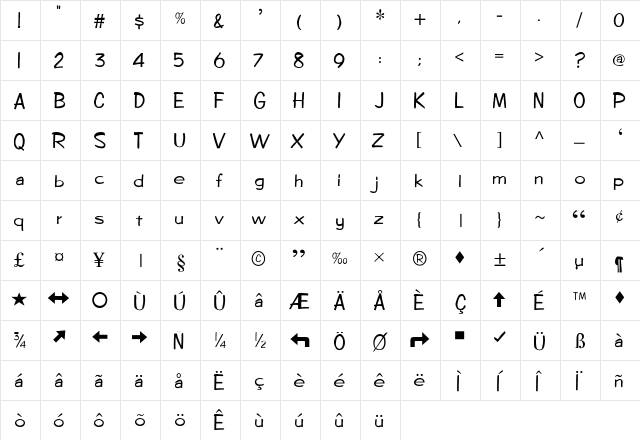
Oingee-Light Regular
Design Context for Oingee-Light Typeface
Oingee-Light offers clean, dependable letterforms without strong stylistic allegiance, making it a practical choice for designers who need flexibility. The delicate stroke weight brings airiness and refinement to layouts.